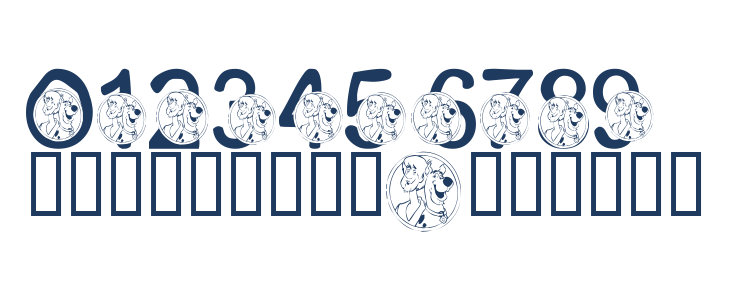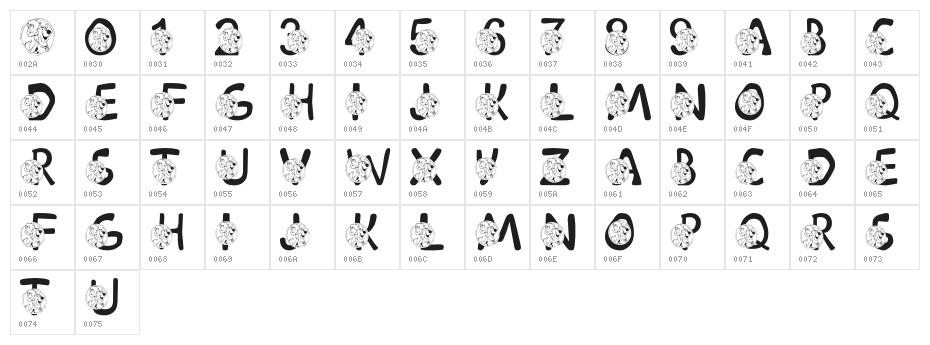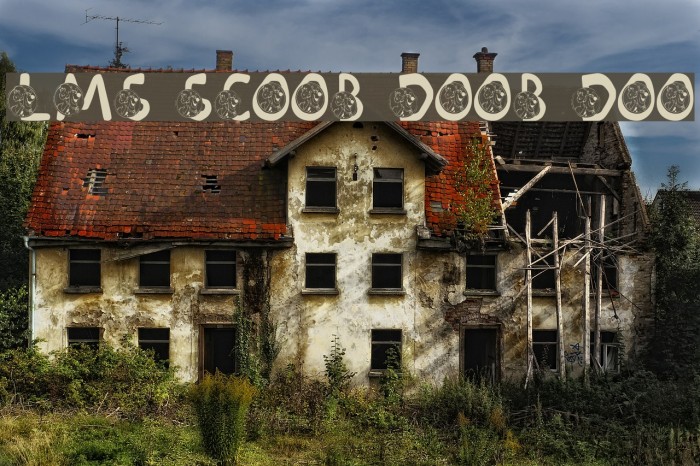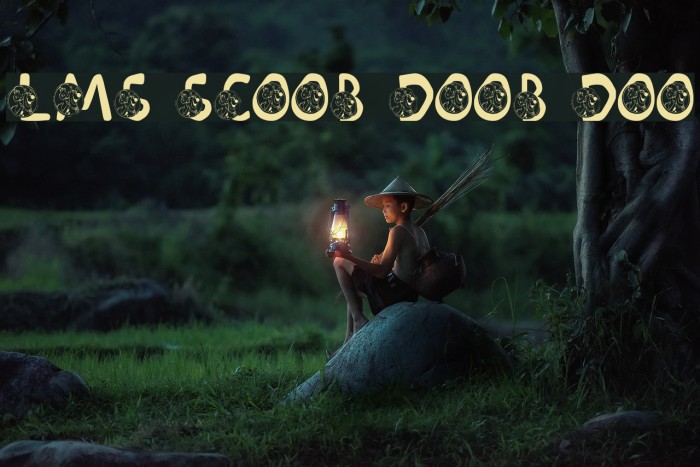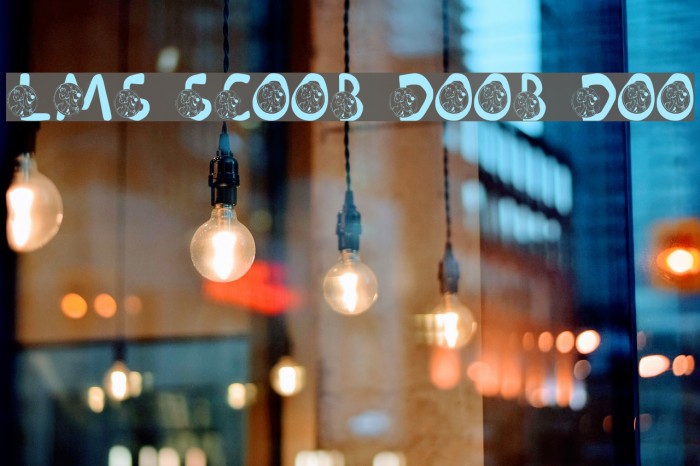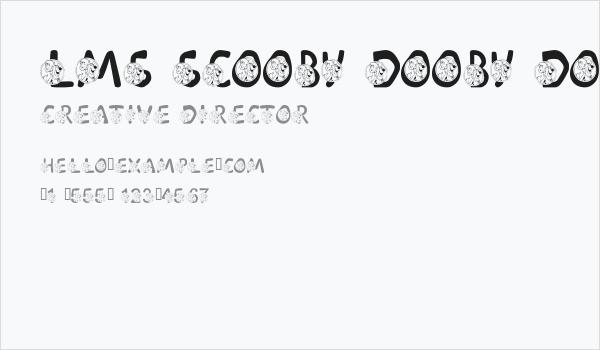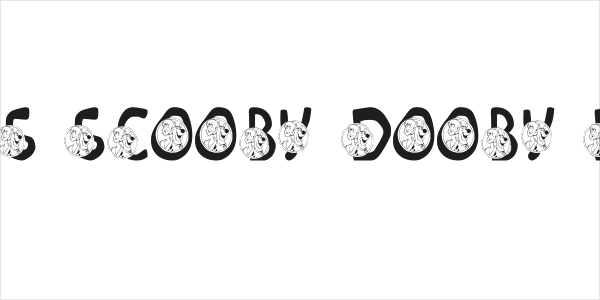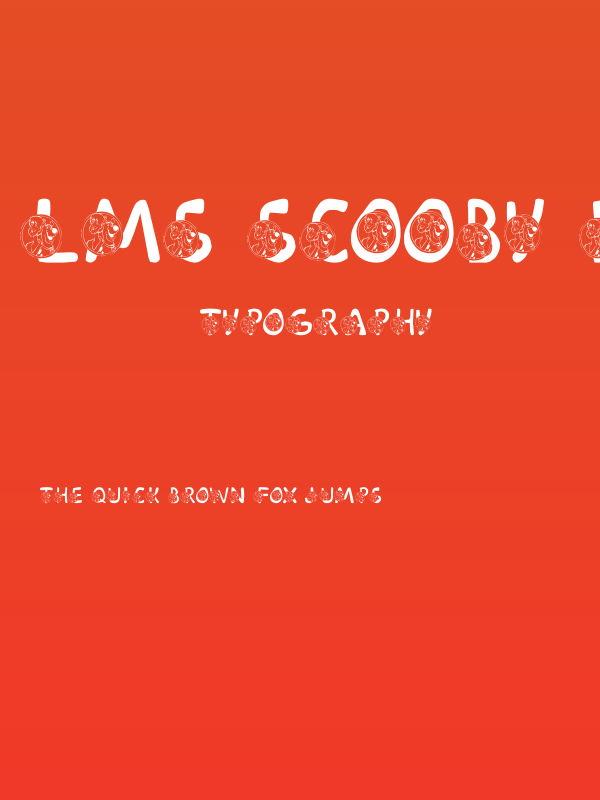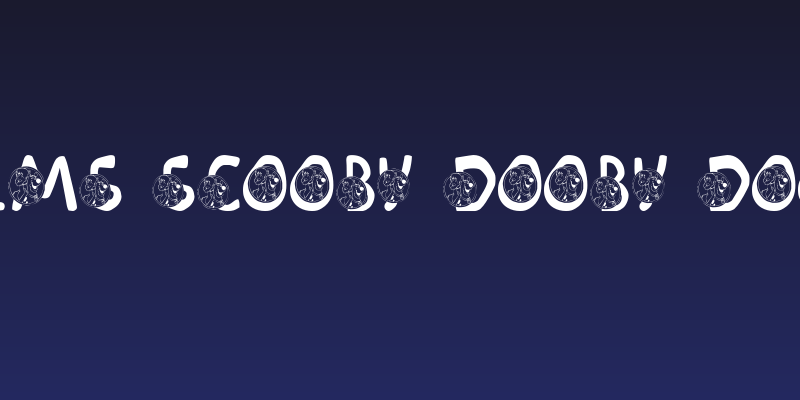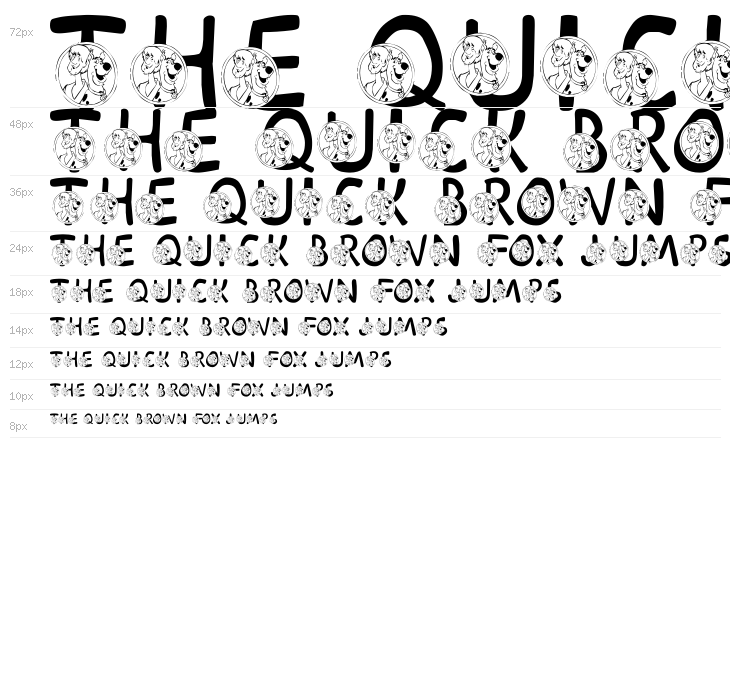
LMS Scooby Dooby Doo Font
LMS Scooby Dooby Doo Description
This playful and whimsical font features bold, rounded letters with a unique twist. Each character is accompanied by a cartoon illustration, adding a fun and lively element to the design. The font maintains a consistent thickness throughout, providing a uniform appearance despite the decorative additions. The characters are well-spaced, ensuring readability while maintaining the playful aesthetic. This font is perfect for projects that aim to capture a sense of fun and nostalgia, making it ideal for children's materials, themed events, or creative branding.
| Use Case | Headlines, Logos, Children's materials |
| Proposed Projects | Ideal for children's books, themed party invitations, playful branding, or any project requiring a fun and whimsical touch. |